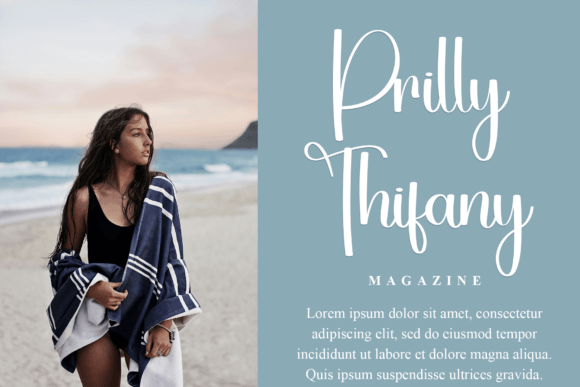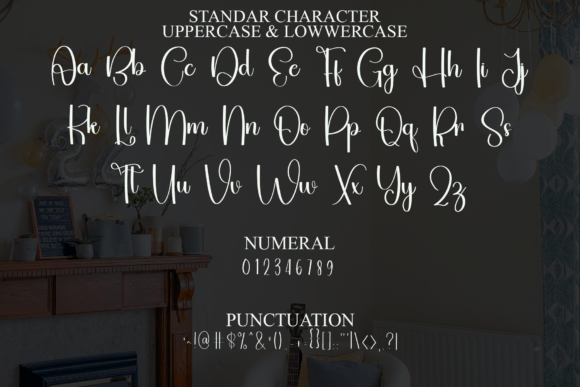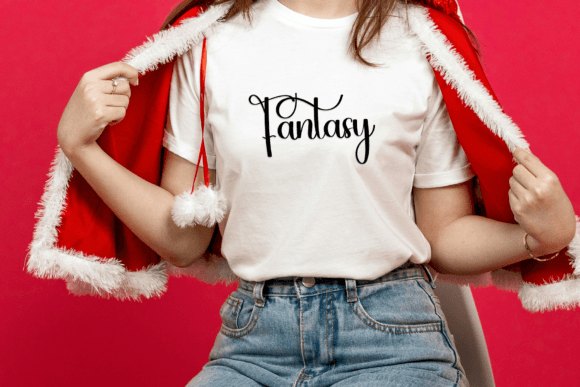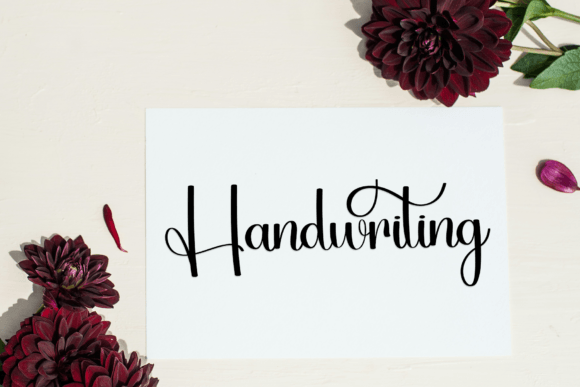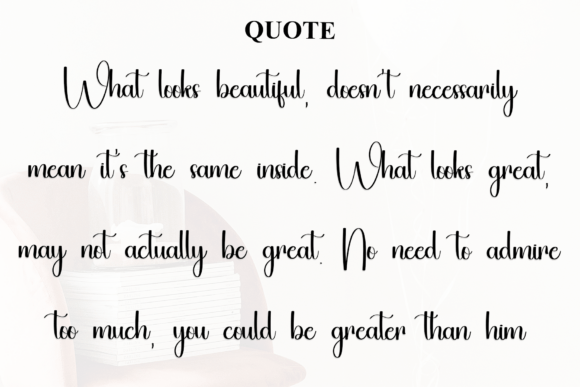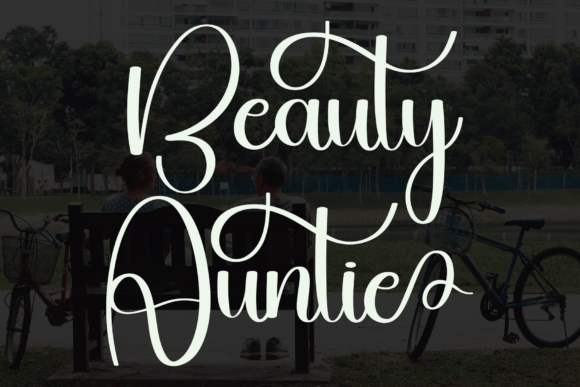
Auntie Font: Elevate Your Designs with Timeless Elegance
In the world of typography, a beautiful font can make all the difference in transforming a design from ordinary to extraordinary. For designers and crafters seeking a stylish, elegant, and contemporary font, Auntie Font is an exceptional choice. Inspired by timeless classic calligraphy, Auntie Font brings a touch of sophistication and refinement to any project.
Characteristics of Auntie Font
Auntie Font is characterized by its impeccable form, balanced and varied design, making it perfect for enhancing the beauty of your projects. The font’s contemporary atmosphere is achieved through its clean lines, subtle curves, and precise lettering. Each glyph and ligature has been carefully crafted to ensure a harmonious and visually appealing result.
Auntie Font is an excellent choice for designers and crafters working on a wide range of projects, including:
- Logos and branding materials: Add a touch of elegance and sophistication to your brand’s identity.
- Wedding invitations and stationery: Create beautiful, bespoke invitations and stationery that reflect your personal style.
- Signage and display graphics: Make a lasting impression with eye-catching signage and display graphics.
- Packaging and product design: Elevate your product packaging with a stylish and refined font.
- Digital and print media: Use Auntie Font in your digital and print media projects, such as brochures, flyers, and social media graphics.
Why Choose Auntie Font?
With so many fonts available, why choose Auntie Font? Here are just a few reasons:
- Unique and distinctive design: Auntie Font’s classic calligraphy inspiration sets it apart from more generic fonts.
- High-quality and precise lettering: Each glyph and ligature has been carefully crafted to ensure a professional result.
- Versatile: Suitable for a wide range of projects and applications.
Tips for Using Auntie Font
To get the most out of Auntie Font, here are a few tips:
- Experiment with different sizes and colors: Find the perfect combination to suit your project’s needs.
- Pair with complementary fonts: Create a harmonious and visually appealing result by pairing Auntie Font with other fonts.
- Take advantage of ligatures and glyphs: Use the font’s built-in features to add an extra touch of elegance and sophistication.
Auntie Font is a stylish, beautiful, and elegant font that can elevate any design project. With its impeccable form, balanced and varied design, and PUA encoding, it’s the perfect choice for designers and crafters seeking a timeless and sophisticated font. Whether you’re working on a logo, wedding invitation, or packaging design, Auntie Font is sure to impress.